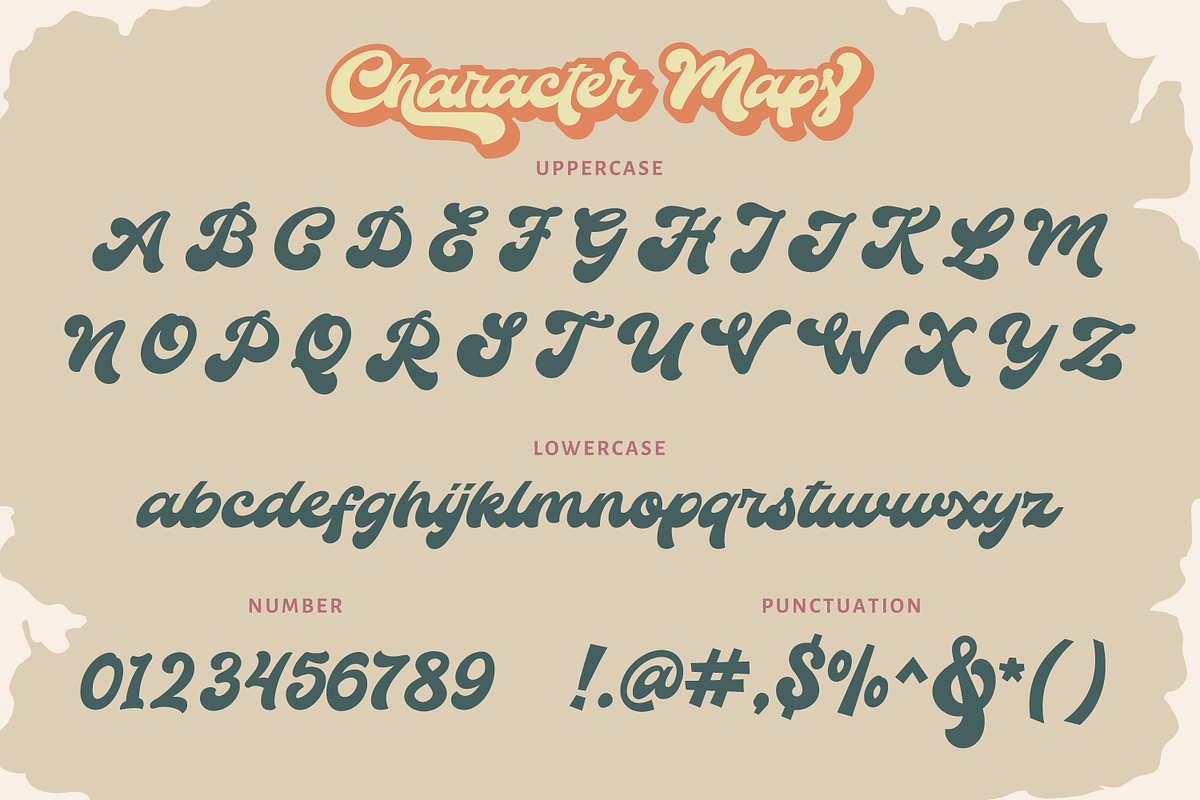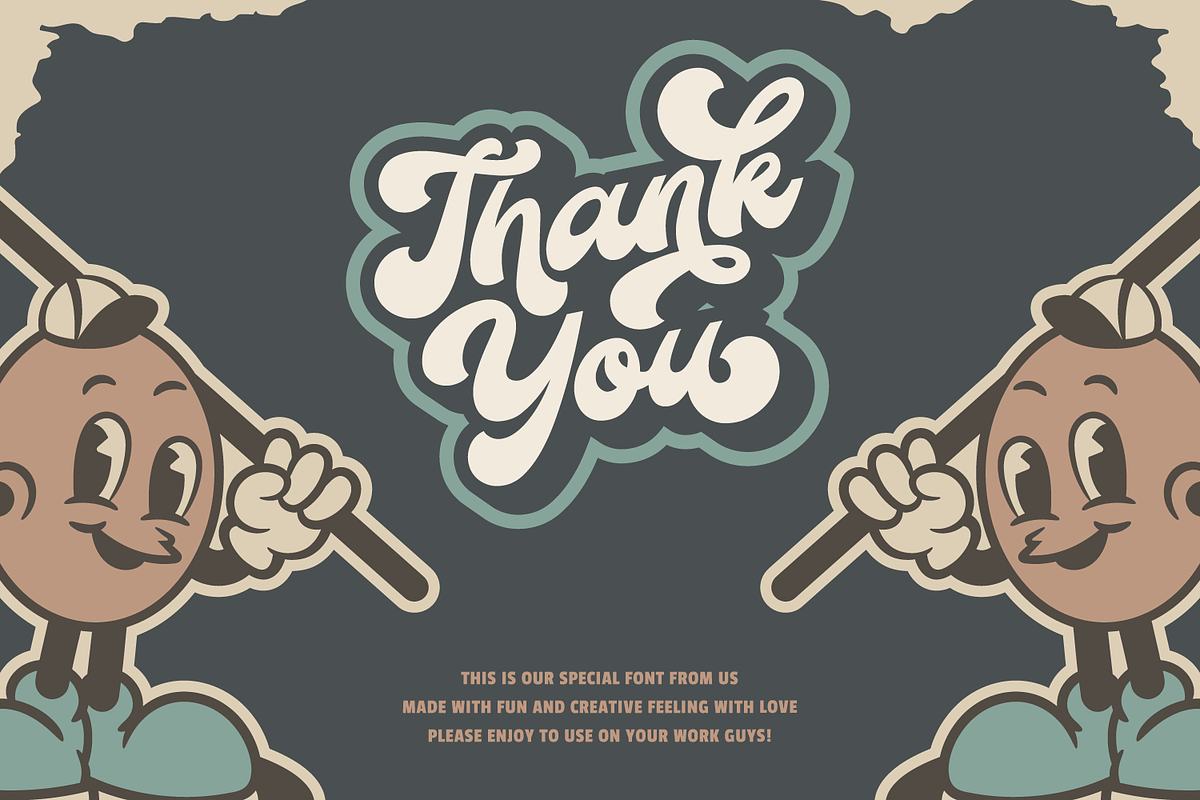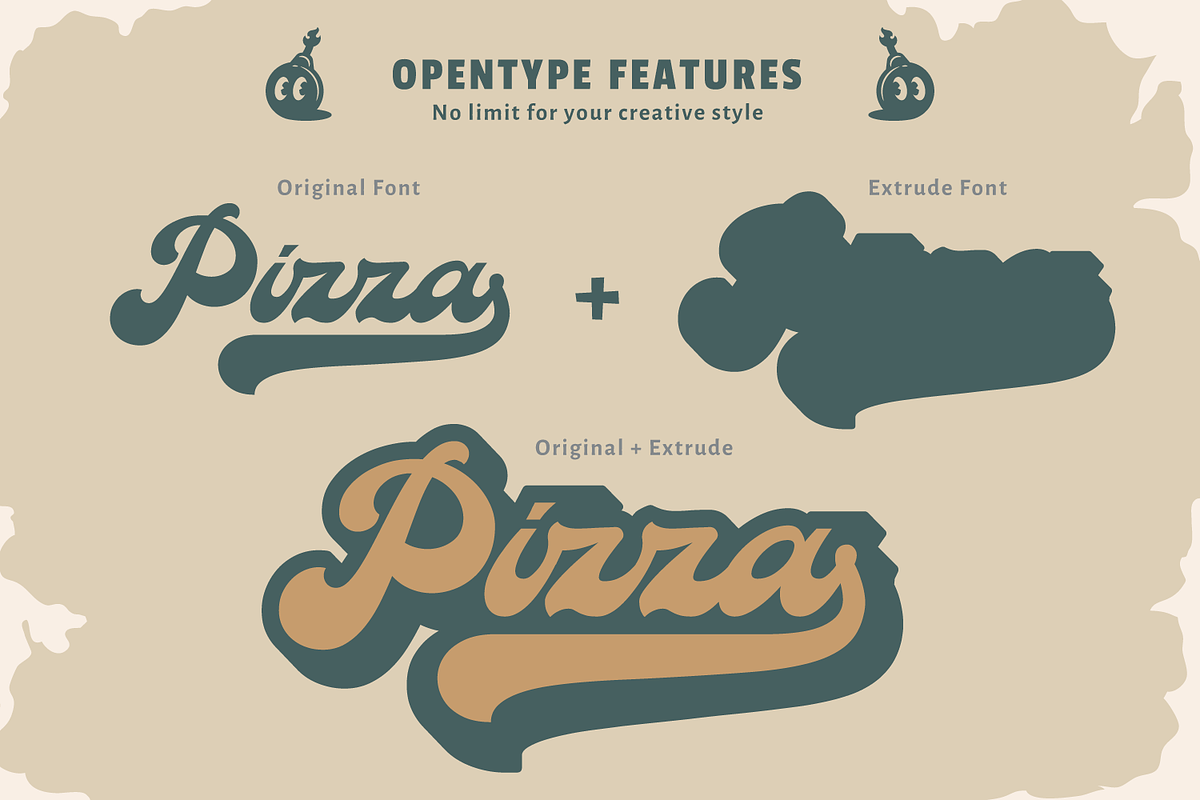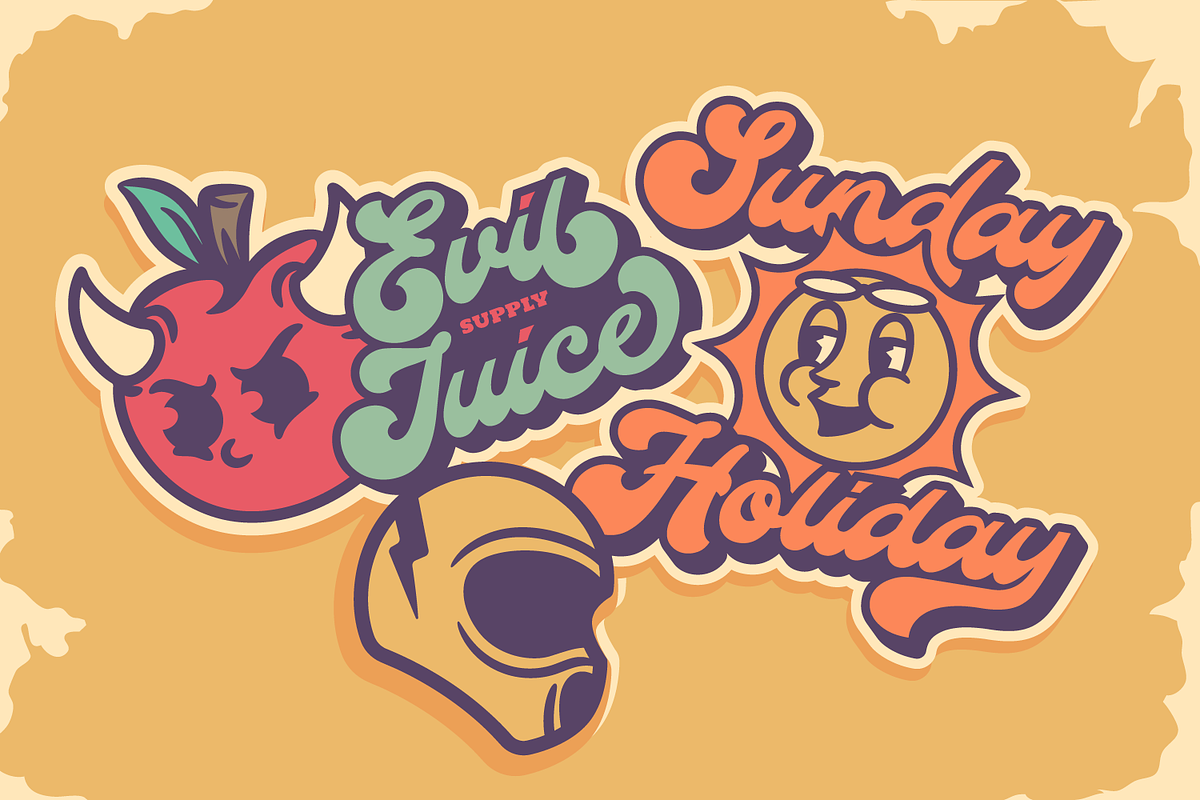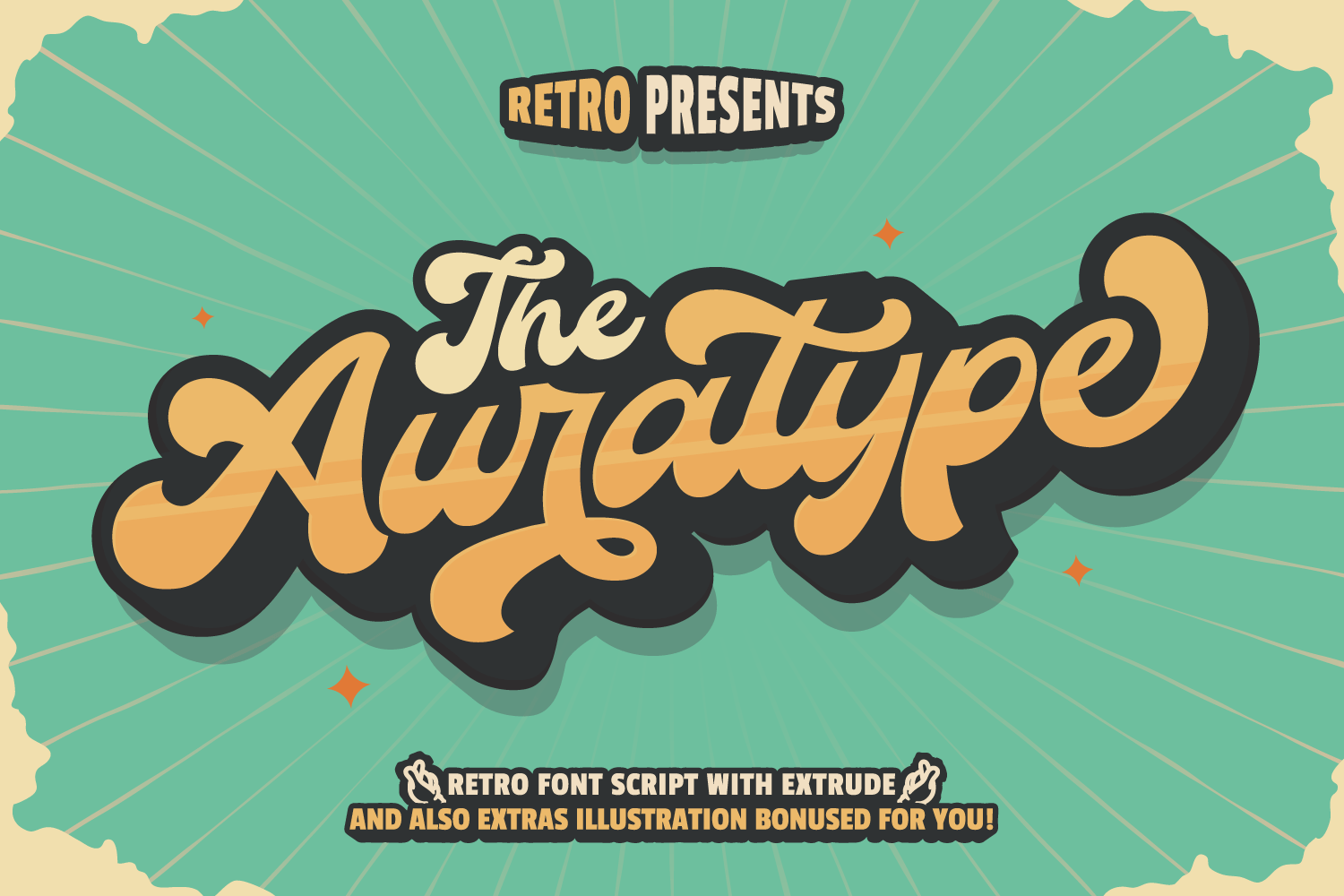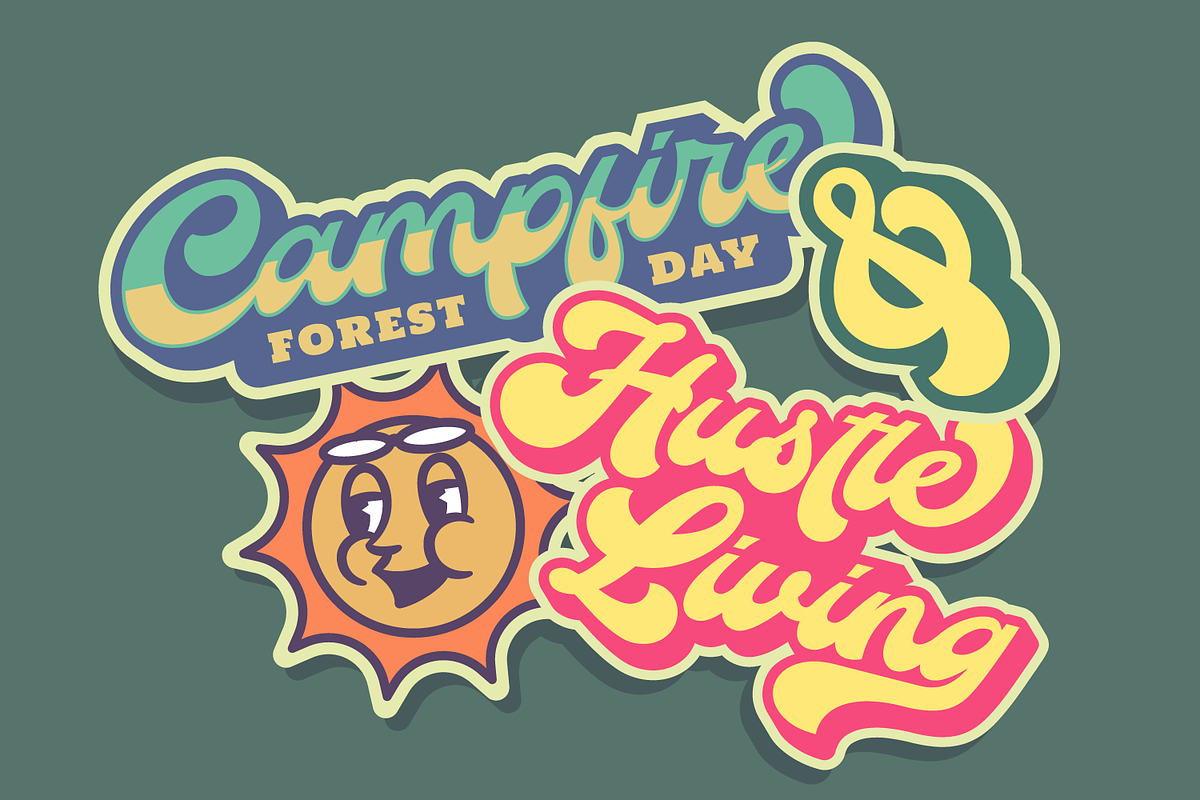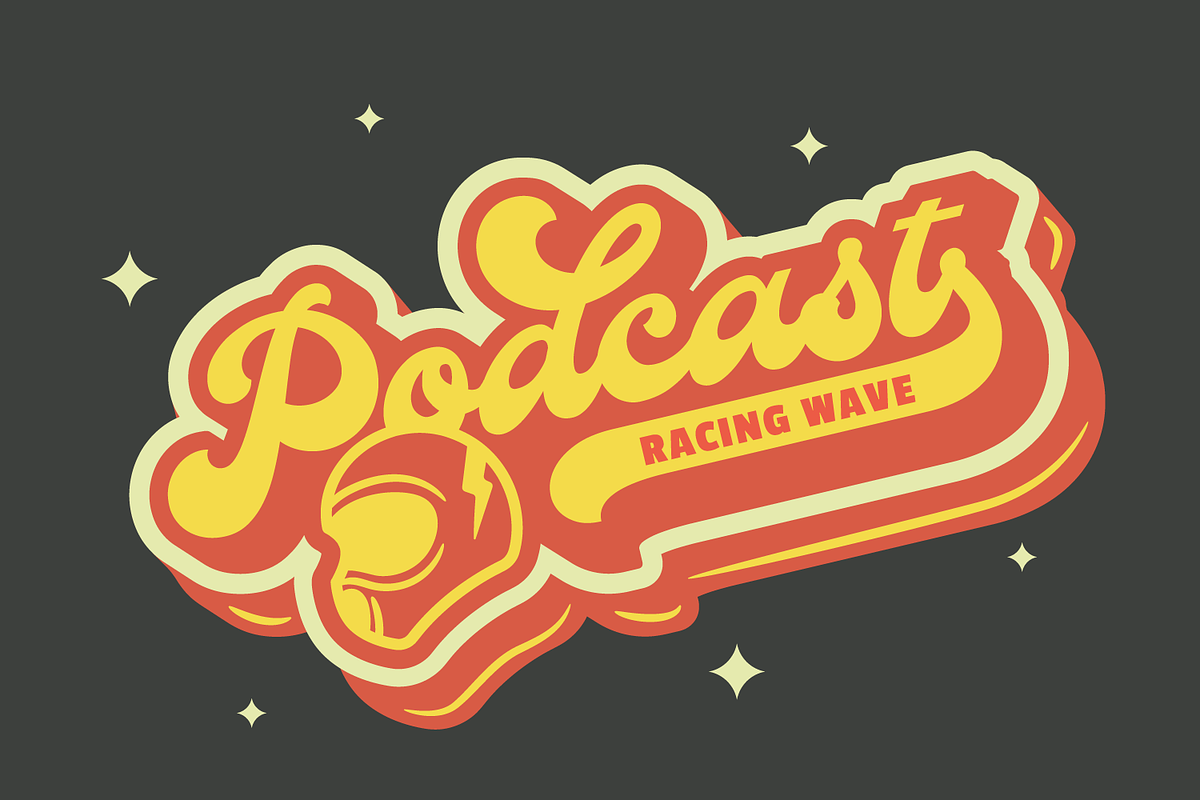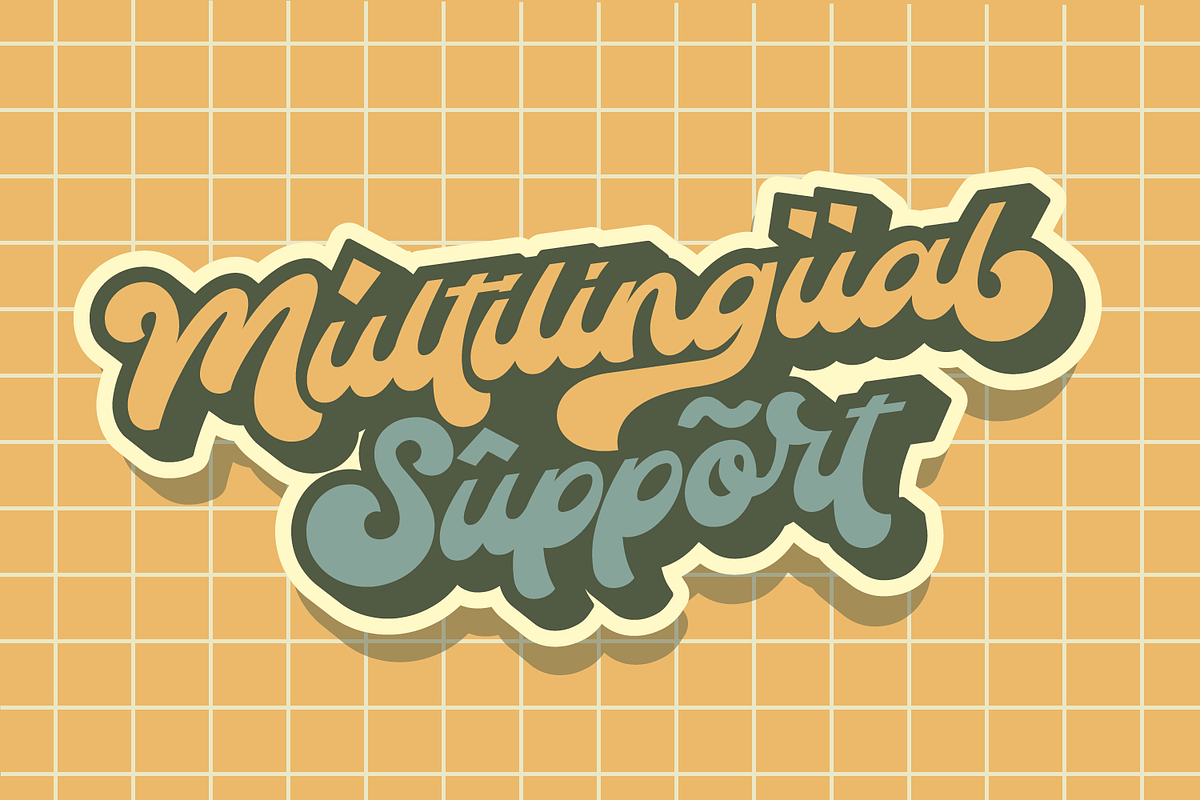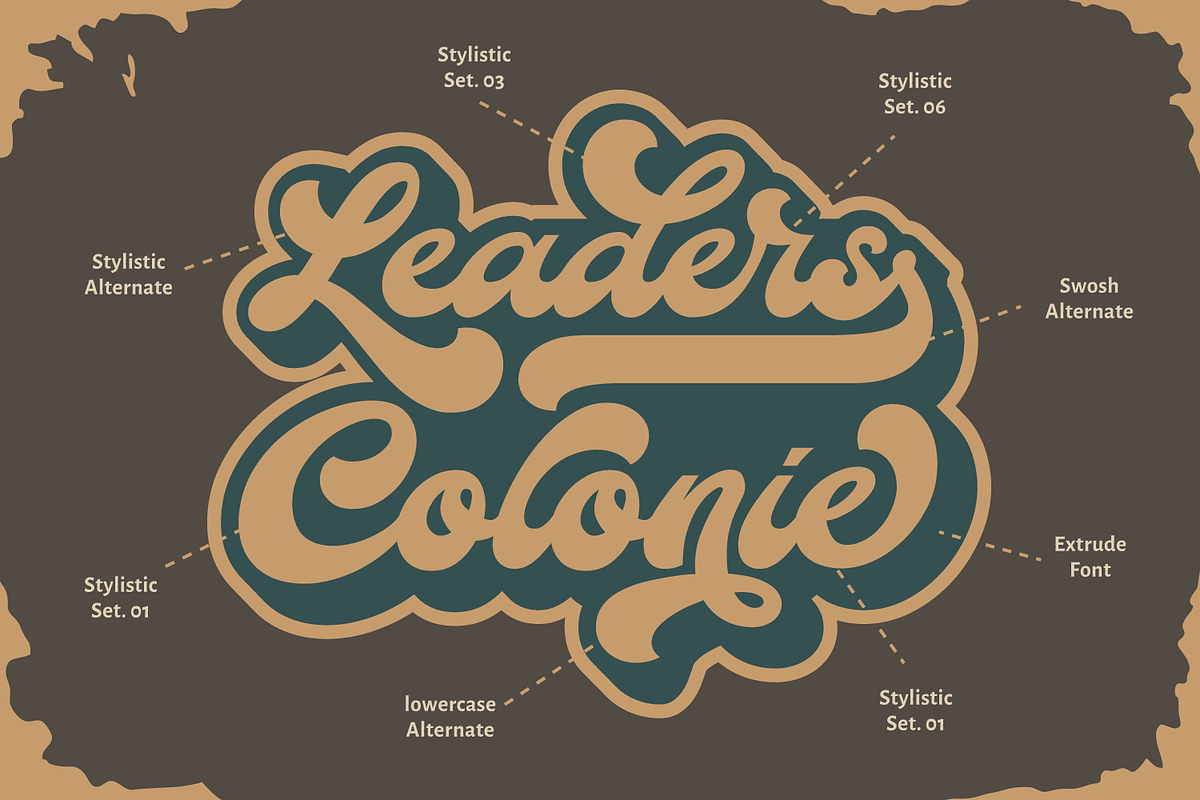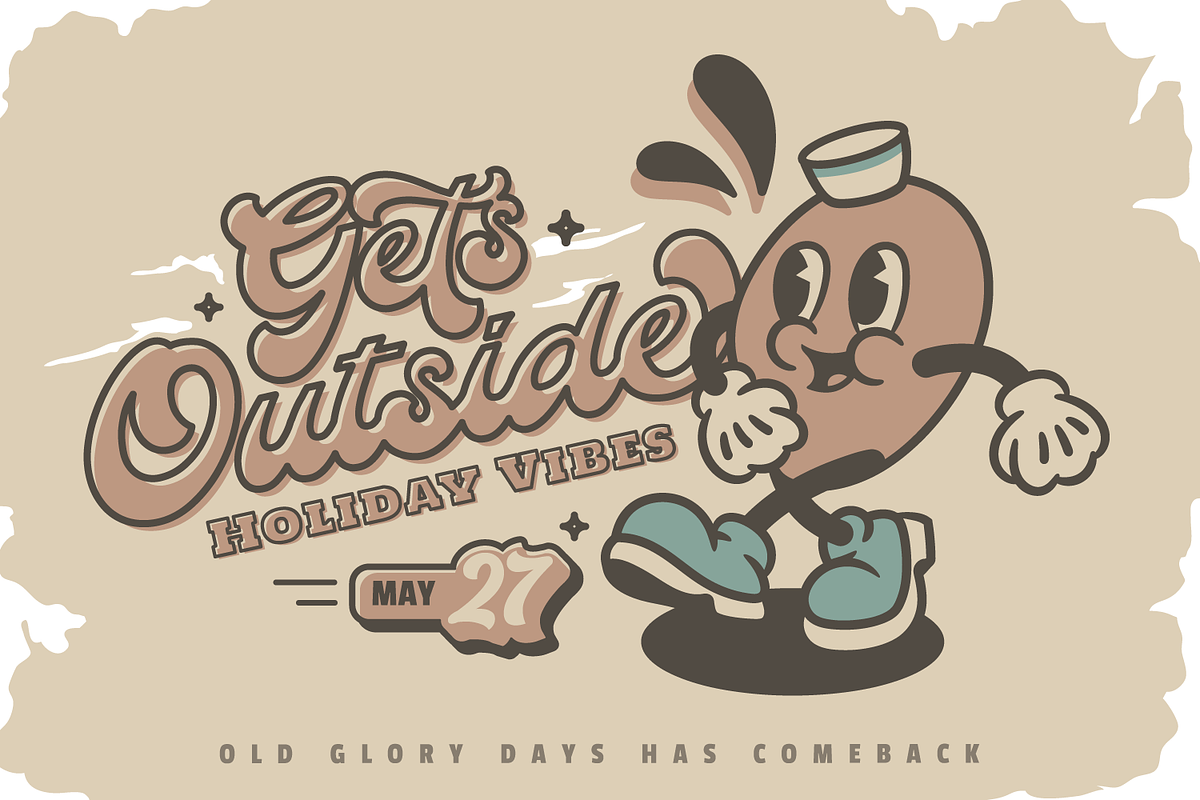
The Auratype | Retro Layered Font
The Auratype is retro and classic typeface who inspired by the 60s - 80s designs with more unique explored style like swosh and alternate character. This font made from manual sketch with many many scratch then finished to font. Make your designs project with this font and extras illustration to give more superb. This font also suitable to design like logo, sticker, tees design, banner, poster, sign, display design, packaging and more superb designs! Enyoy with our product and feel free contact us for support!
- Full set of Upper & Lowercase Character
- Number & Punctuation
- Swosh Alternate
- Extras Illustration
- Multilingual Language
- Opentype Features